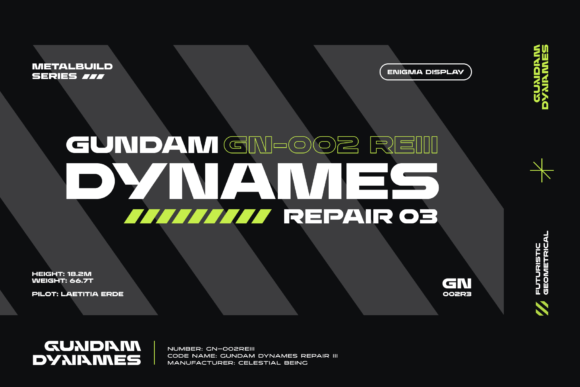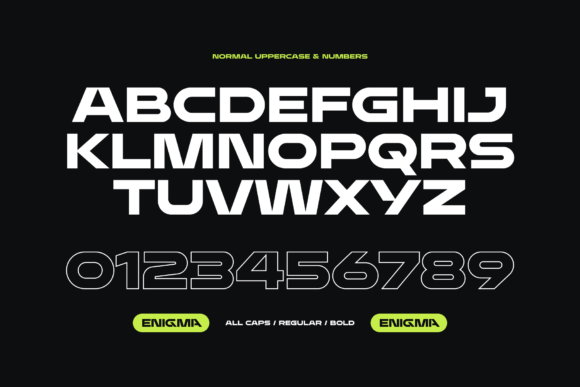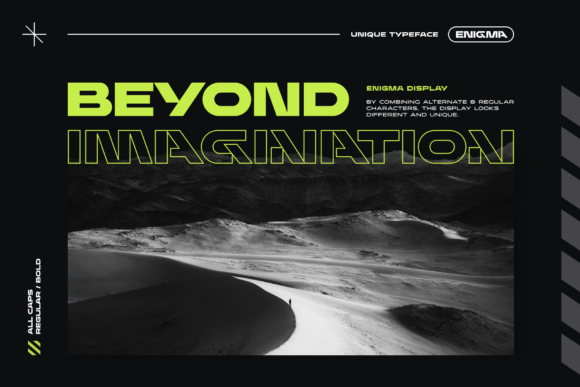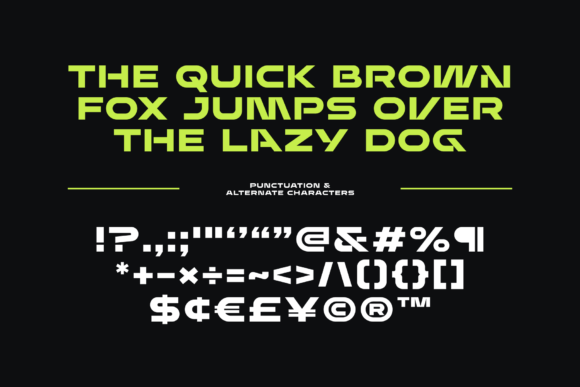
Unravel the Mystery of Enigma Display Font: A Unique Sans Serif Typeface
In the vast and ever-evolving world of type design, it’s not often that a font comes along and truly stands out from the crowd. However, the Enigma Display Font is one such anomaly that has captured the attention of designers and crafters alike. This expanded sans serif typeface boasts an unusual, eye-catching style that is sure to make your designs pop.
What Sets Enigma Apart?
One of the defining features of the Enigma Display Font is its optically consistent weight across all letters. This means that whether you’re using it for a headline, a title, or any other design element, the font maintains a consistent feel that is both visually appealing and professional. This consistency is key to creating a cohesive look and feel in any design project.
Another notable feature of the Enigma Display Font is its availability of alternate characters. For designers looking to create a unique and distinctive type that will set their identity apart, these alternate characters offer a world of creative possibilities. Whether you’re looking to add a touch of personality to your brand or simply want to experiment with different typography, the Enigma Display Font has got you covered.
The Enigma Display Font is a versatile typeface that is perfect for a wide range of design applications. Whether you’re a professional designer working on a client’s project or a crafter looking to add a personal touch to your DIY creations, this font is sure to inspire. Its unique style and flexibility make it an excellent choice for:
- Headlines and titles
- Signage and display text
- Digital graphics and social media assets
Why Choose Enigma Display Font?
So why choose the Enigma Display Font over other typefaces? Here are just a few compelling reasons:
- Unique style: The Enigma Display Font boasts a truly one-of-a-kind style that will set your designs apart from the crowd.
- Consistent feel: The optically consistent weight of the font ensures a professional and cohesive look and feel across all design applications.
- Alternate characters: The availability of alternate characters offers endless creative possibilities for designers looking to push the boundaries of typography.
- Versatility: The Enigma Display Font is perfect for a wide range of design applications, from logos and branding to digital graphics and social media assets.
In conclusion, the Enigma Display Font is a game-changing typeface that is sure to make a lasting impression. Its unique style, consistent feel, and availability of alternate characters make it an excellent choice for designers and crafters looking to push the boundaries of typography. So why settle for ordinary when you can create something truly extraordinary with the Enigma Display Font?